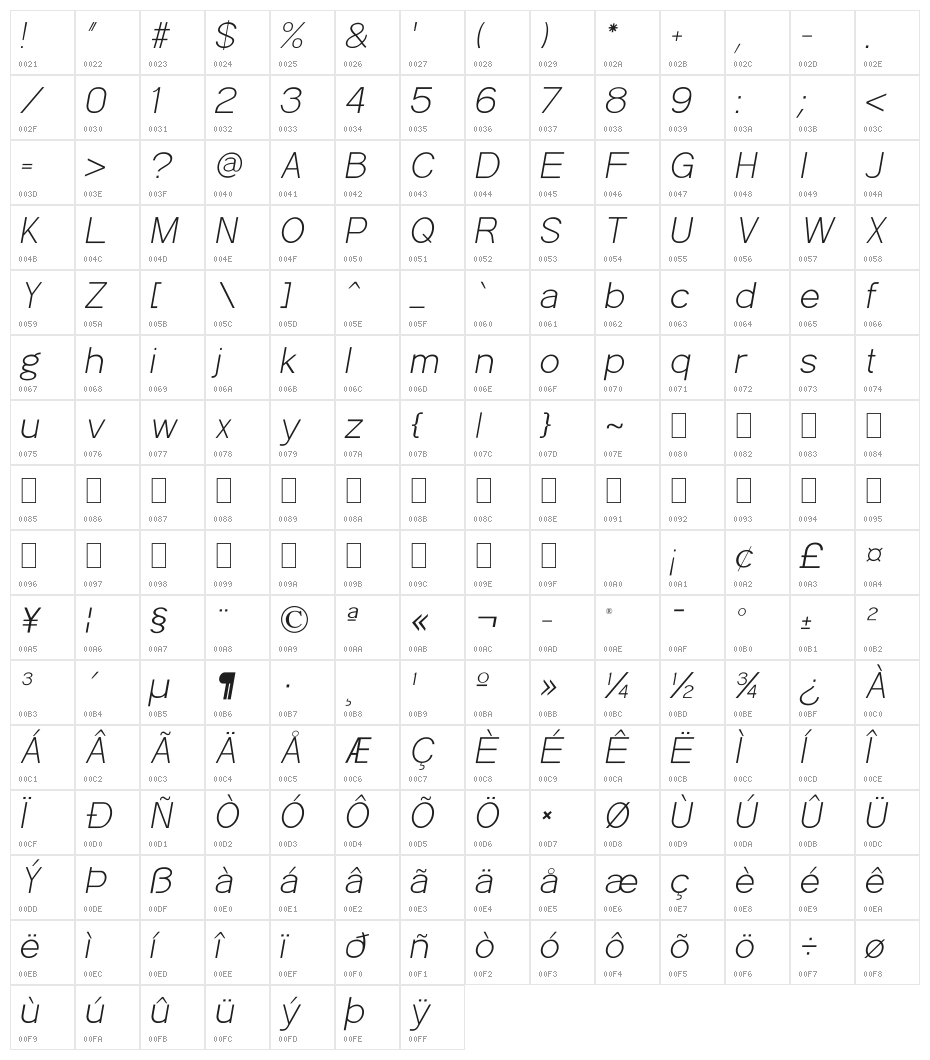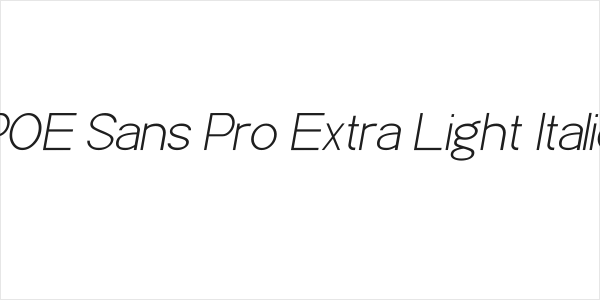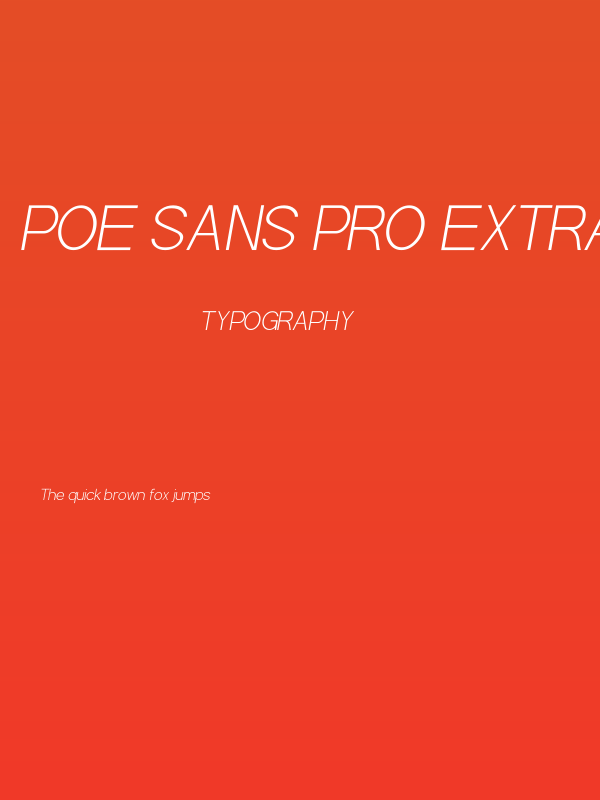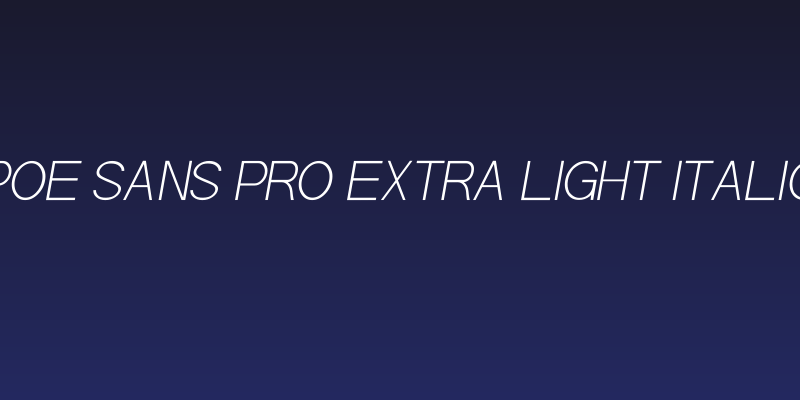
POE Sans Pro Extra Light Italic Font
POE Sans Pro Extra Light Italic Description
This font features a sleek and modern design with a clean, sans-serif style. The characters are elegantly crafted with a slight italic slant, giving them a dynamic and forward-moving appearance. The extra-light weight of the strokes provides a delicate and airy feel, making it suitable for minimalist and contemporary designs. The spacing between characters is balanced, ensuring readability while maintaining a sophisticated look. The font includes a full set of uppercase and lowercase letters, numerals, and a variety of special characters, making it versatile for various design needs.